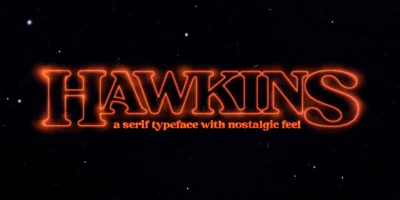
Hawkins Font
Hawkins Font is perfect for retro design projects including vintage record labels, 1980s nostalgia campaigns, retro gaming interfaces, classic arcade signage, throwback fashion brands, vintage poster reproductions, nostalgic marketing materials, and sci-fi themed promotions. This distinctive typeface excels in retro entertainment venues, vintage electronics branding, classic car dealerships, throwback television productions, and projects that celebrate the iconic design aesthetics of past decades.
What makes Hawkins Font exciting is its authentic retro character that perfectly captures the essence of vintage design excellence and nostalgic charm. The font features bold, geometric letterforms with distinctive styling that reflects the optimistic futurism and bold graphic design of classic eras. Its timeless design elements embody the spirit of innovation and cultural confidence that defined memorable decades, making it perfect for projects that need to convey nostalgia, authenticity, and timeless cool. The carefully preserved period details create an atmosphere of genuine vintage appeal and cultural significance.
Hawkins Font comes in multiple family variations including light, regular, bold, and neon styles. Each weight maintains the distinctive retro character while offering different levels of vintage intensity and nostalgic presence. The font family includes period alternates, vintage ligatures, and throwback variations that provide designers with comprehensive options for creating truly authentic and culturally resonant typographic compositions that celebrate design heritage.